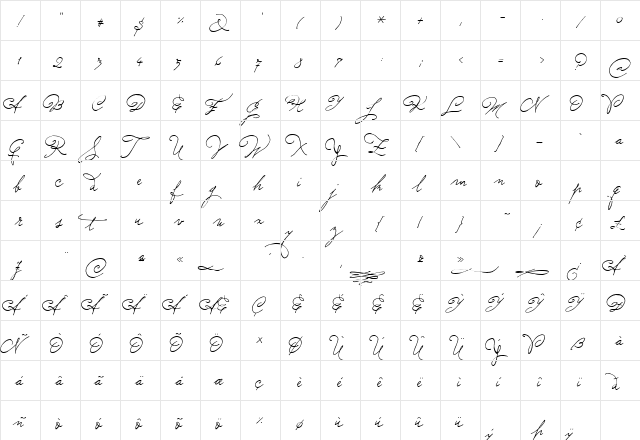
Sudestada Regular
Design Context for Sudestada Typeface
Sudestada is a composed and adaptable typeface that performs quietly and consistently across a wide range of design contexts.